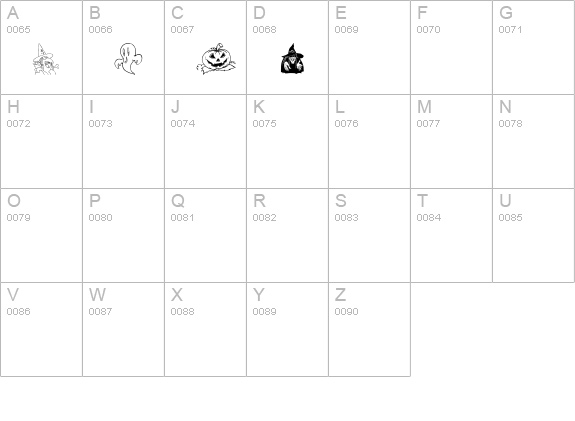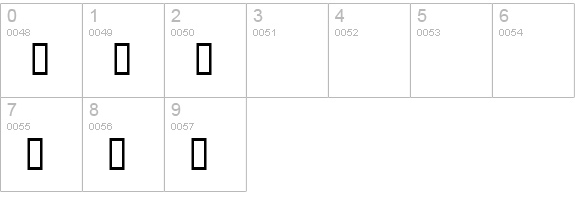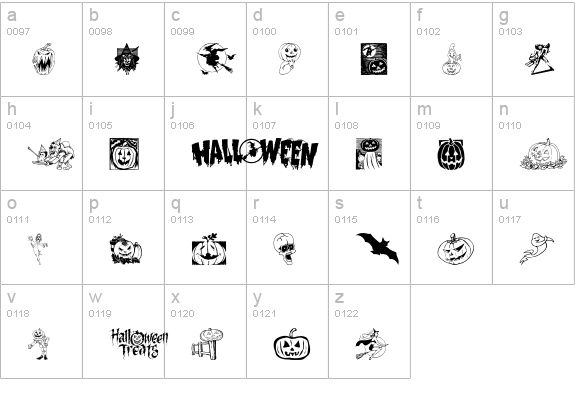
Helloween 2 Font Details
Introducing Helloween 2, an extraordinary font that will bewitch your designs and enchant your audience with its spooky charm. This font is the perfect combination of playful and eerie, making it ideal for Halloween-themed projects, horror movie posters, haunted house flyers, and more. Helloween 2 features a captivating mix of bold, jagged lines and intricate details, giving each letter a mysterious and otherworldly vibe. Its unique design will instantly transport your audience to a world of witches, ghosts, and things that go bump in the night. But what makes Helloween 2 even more enchanting is the fact that it is freely available to download at FontsMarket.com. Yes, you read that right! This font is not only hauntingly beautiful, but it is also completely free, allowing you to add a touch of darkness to your designs without breaking the bank. Whether you're a professional designer looking to add a touch of the macabre to your next project or a Halloween enthusiast wanting to spice up your decorations, Helloween 2 is the font for you. Its versatility and unique style will bring your designs to life, giving them an eerie and captivating edge. So, don't miss out on this wickedly wonderful font. Head over to FontsMarket.com now and download Helloween 2 for free. Let your creativity run wild as you embrace the spirit of Halloween with this hauntingly beautiful font. Happy designing!